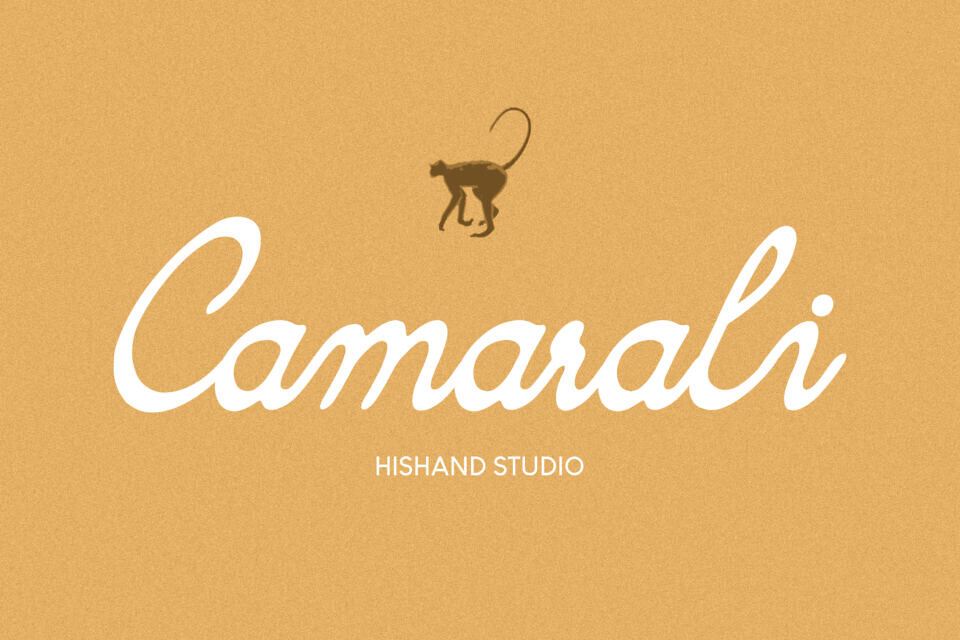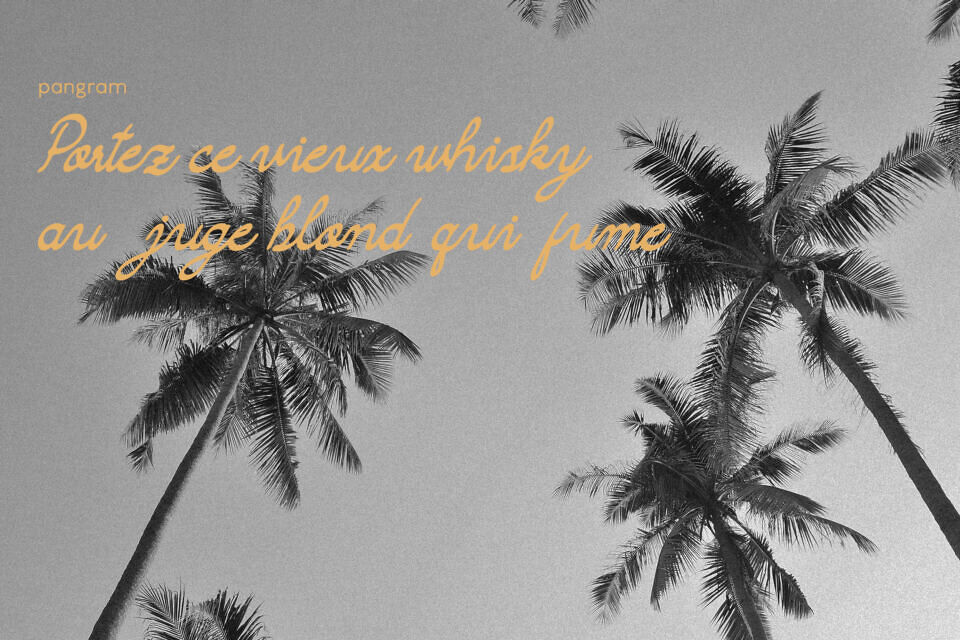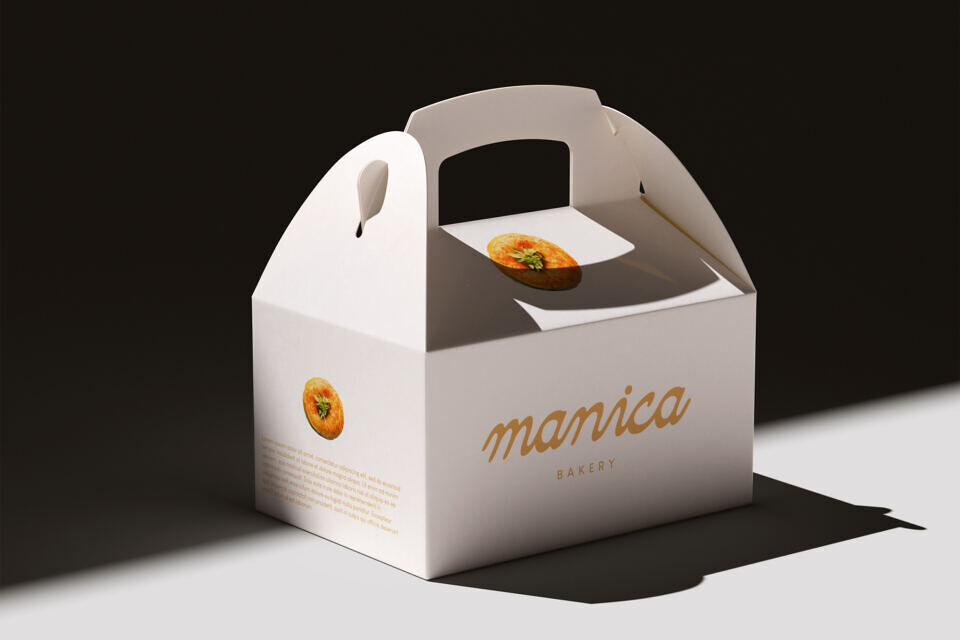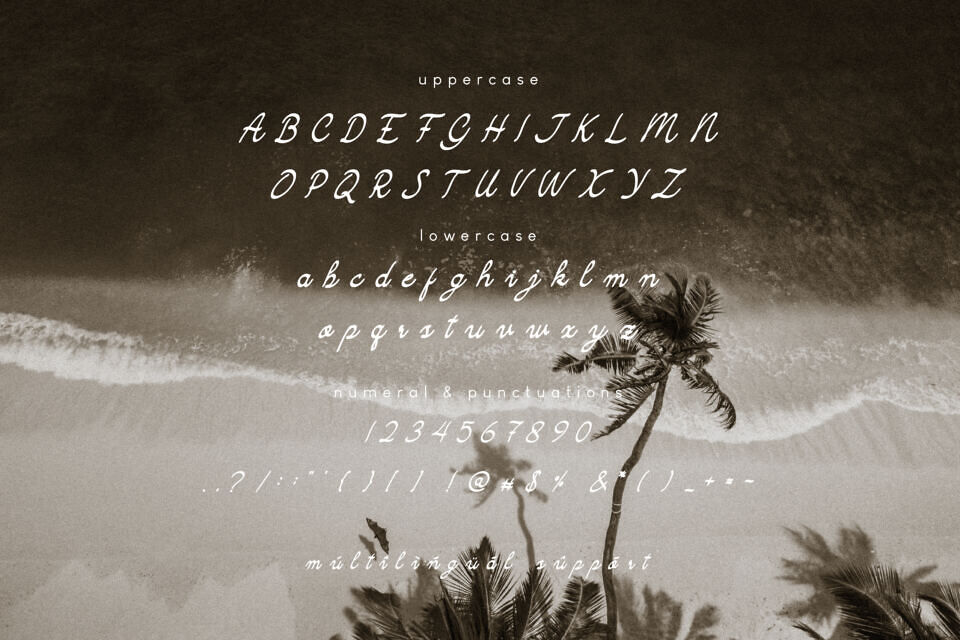
Camarali Font
Camarali is a graceful handwritten script font that captures the essence of natural elegance and artistic expression. Designed with fluid strokes and gentle curves, it brings a sense of warmth and authenticity to any design it touches.
Each letter flows seamlessly into the next, creating a harmonious rhythm that feels refined, balanced, and visually pleasing across different compositions. This smooth connectivity gives Camarali a distinctly human touch, echoing the beauty of real handwriting while maintaining a polished and consistent structure.